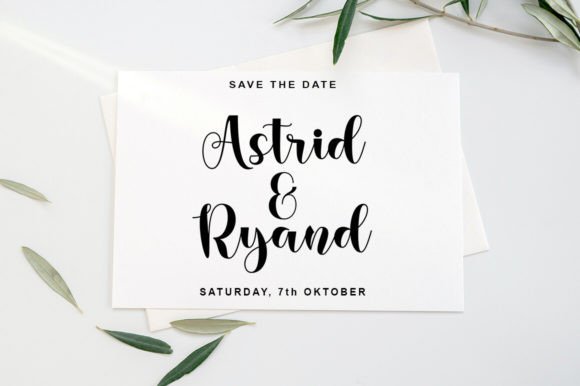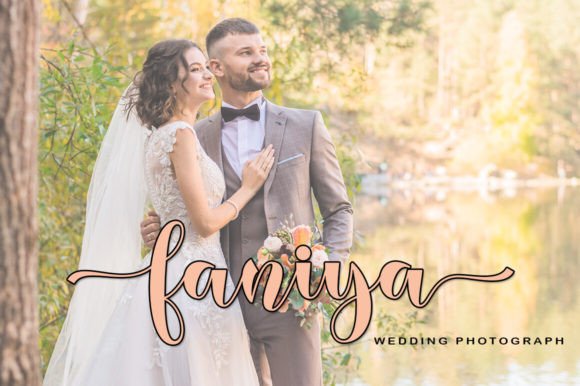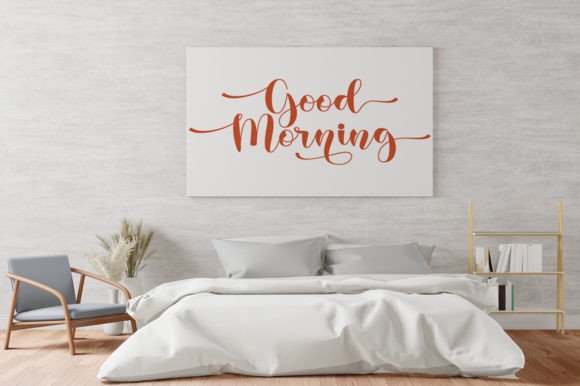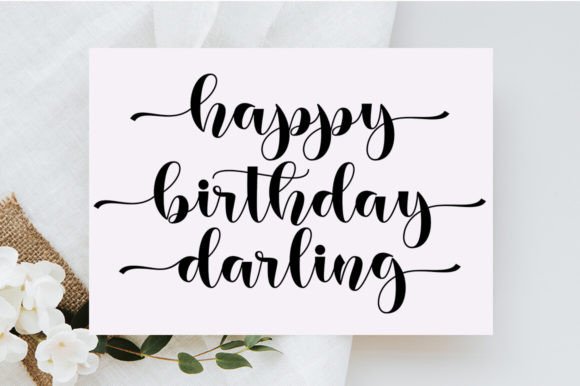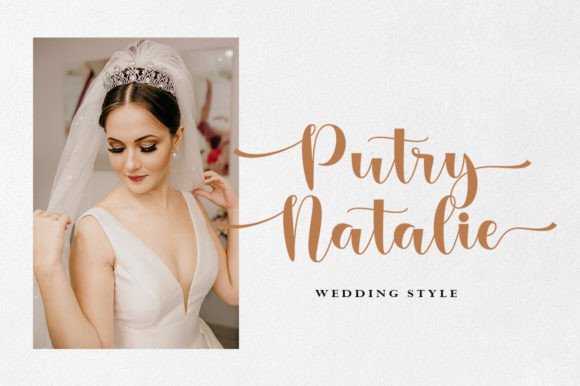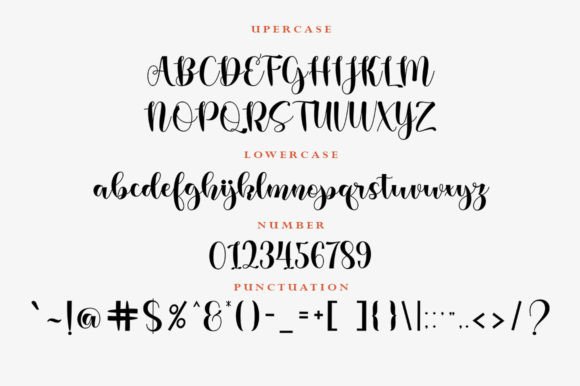
Have you ever been brainstorming a new design project, flipping through a notebook filled with scribbled ideas and doodles, only to stumble upon a perfectly imperfect handwriting style that screams “me”? That’s exactly what happened to many designers when they discovered the Baby Party Font.
This beautiful handwriting font is more than just a pretty face – it’s equipped with over 300 glyphs, making it a versatile tool for branding projects, home appliance design, product packaging, business cards, invitation cards, and so much more. Whether you’re a seasoned designer or just starting out, the Baby Party Font is sure to bring a touch of whimsy and personality to your designs.
Baby Party Font Key Features
- Unique Characteristics: This font features playful, cursive lines and whimsical flourishes, making it perfect for baby-themed designs and party invitations
Designer Review: Baby Party Font
Overall, I think the Baby Party Font is a cute and playful font, perfect for creating a fun and festive atmosphere in kids’ party invitations, banners, and other materials. Here are some things that work well:
- ✨ The font’s whimsical feel and rounded edges make it perfect for a children’s party theme.
- ✨ The font comes in a variety of styles, including uppercase and lowercase letters, numbers, and punctuation, making it versatile for different design applications.
- ✨ The font is highly customizable, allowing designers to adjust the size, color, and spacing to fit their design needs.
- ⚠️ The font may be too childish for some designs, such as adult-themed parties or formal invitations.
- ⚠️ Some users may find the font too ornate or busy, making it difficult to read in certain contexts.
- ⚠️ The font may not be suitable for professional or formal designs, such as business cards or resumes.
Overall, I think the Baby Party Font is a great option for designers looking to add a playful touch to their kids’ party designs. While it may have some limitations, it’s a fun and versatile font that can add a lot of personality to a design.
Tips for Getting the Most Out of the Baby Party Font
Use the Baby Party Font in conjunction with pastel colors and baby-themed graphics to create a cohesive and adorable design.
Experiment with different font sizes and styles to add visual interest and emphasis to your text.
Use the font to create a consistent brand identity across multiple designs and materials.
The Baby Party Font is ideal for creating invitations, party decorations, and baby shower materials.
Use the font to create social media graphics and announcements for baby-related events.
The font is also suitable for creating baby-themed merchandise such as t-shirts, stickers, and other promotional items.